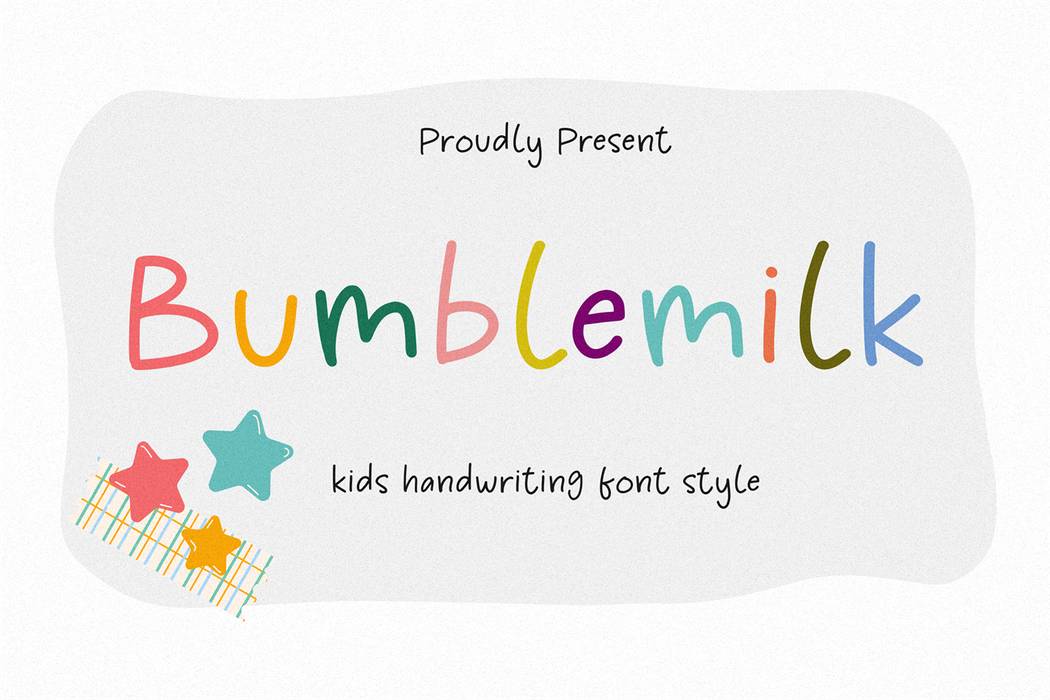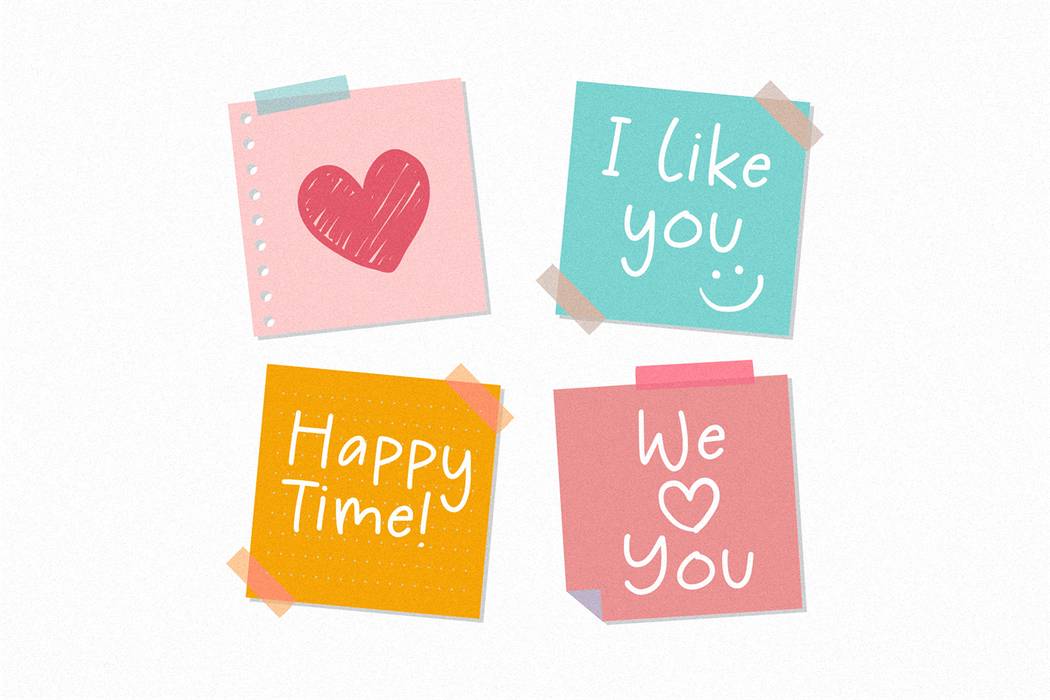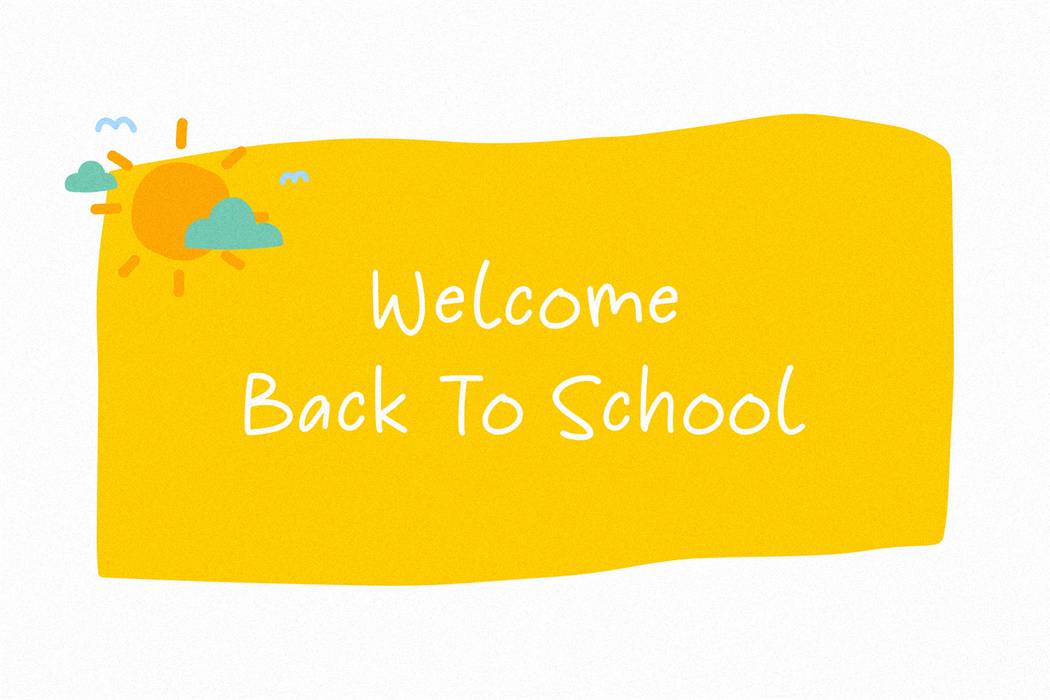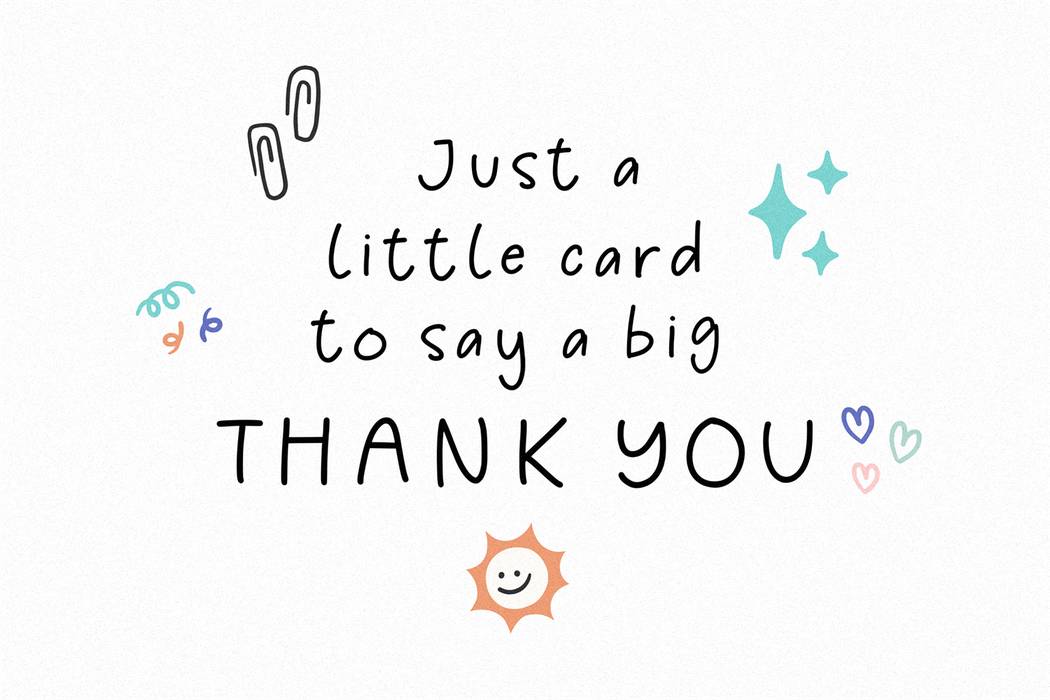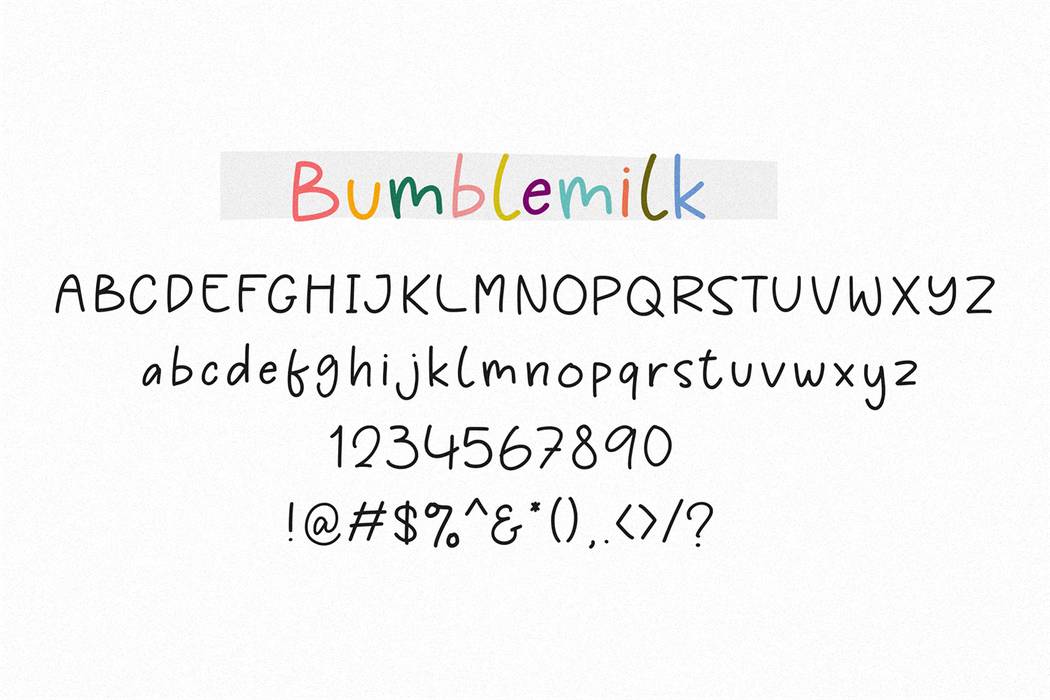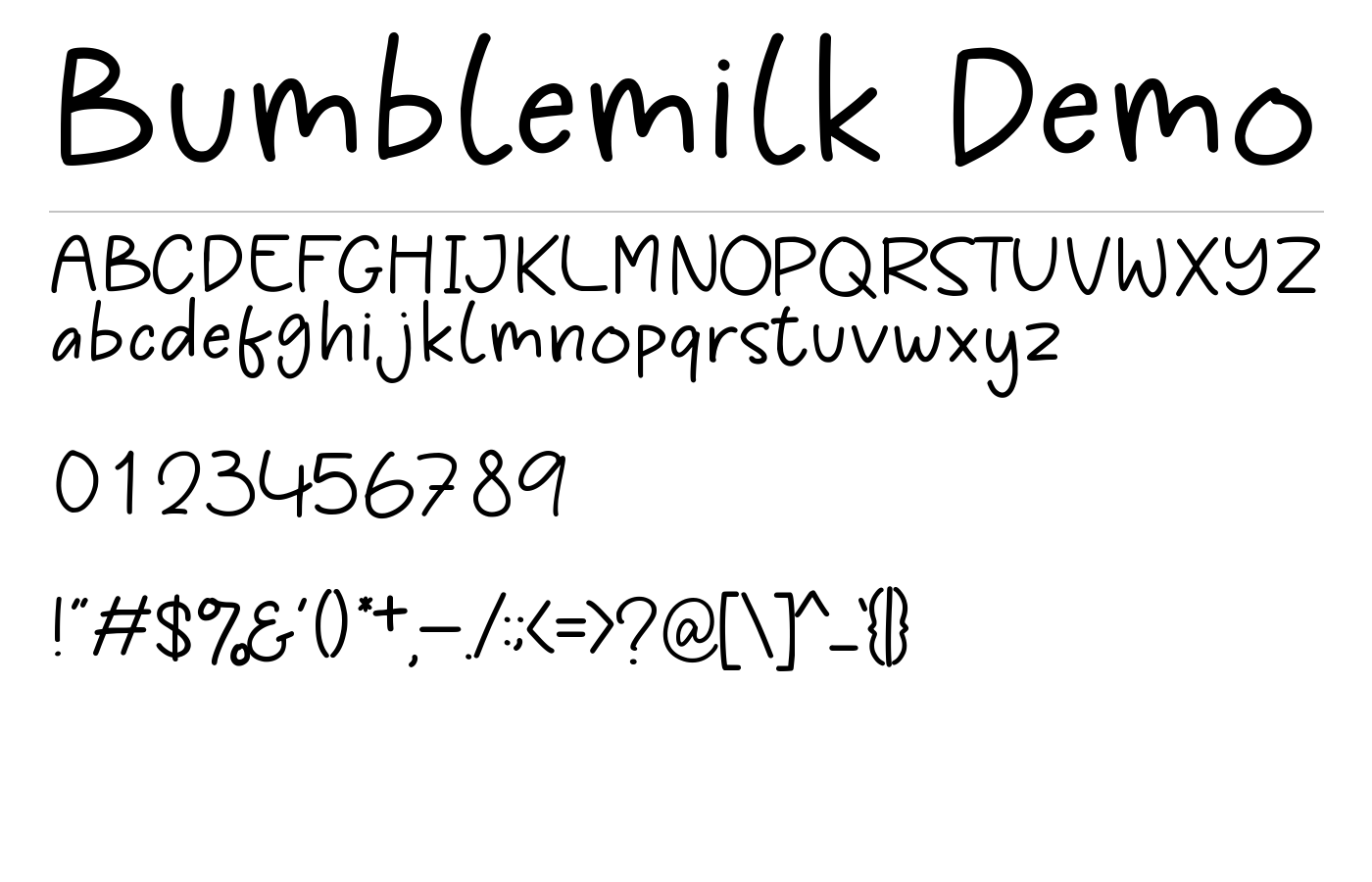
Bumblemilk is a playful, casual sans serif font that mimics a friendly handwritten style with light weight and a slightly condensed, airy spacing. Its rounded, informal letterforms and simple strokes make it approachable and fun, ideal for projects that want to convey warmth and personality. This font works well in children’s materials, informal branding, greeting cards, and anywhere a relaxed, personal touch is needed.
Bumblemilk Font
About Bumblemilk Font